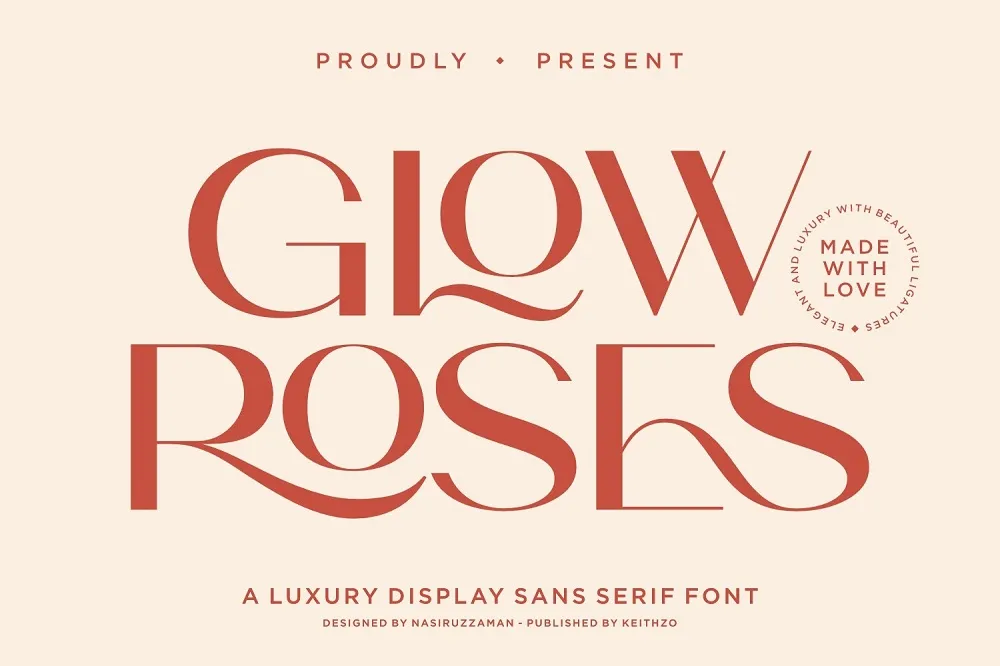
Glow Roses Fonts is a clean, sophisticated and highly readable sans serif typeface. Glow Roses classy and elegant curves give it an air of elegance and professionalism which is ideal for any top class design. Do not let this font slip through your fingers for your project that requires elegance and a polished look.